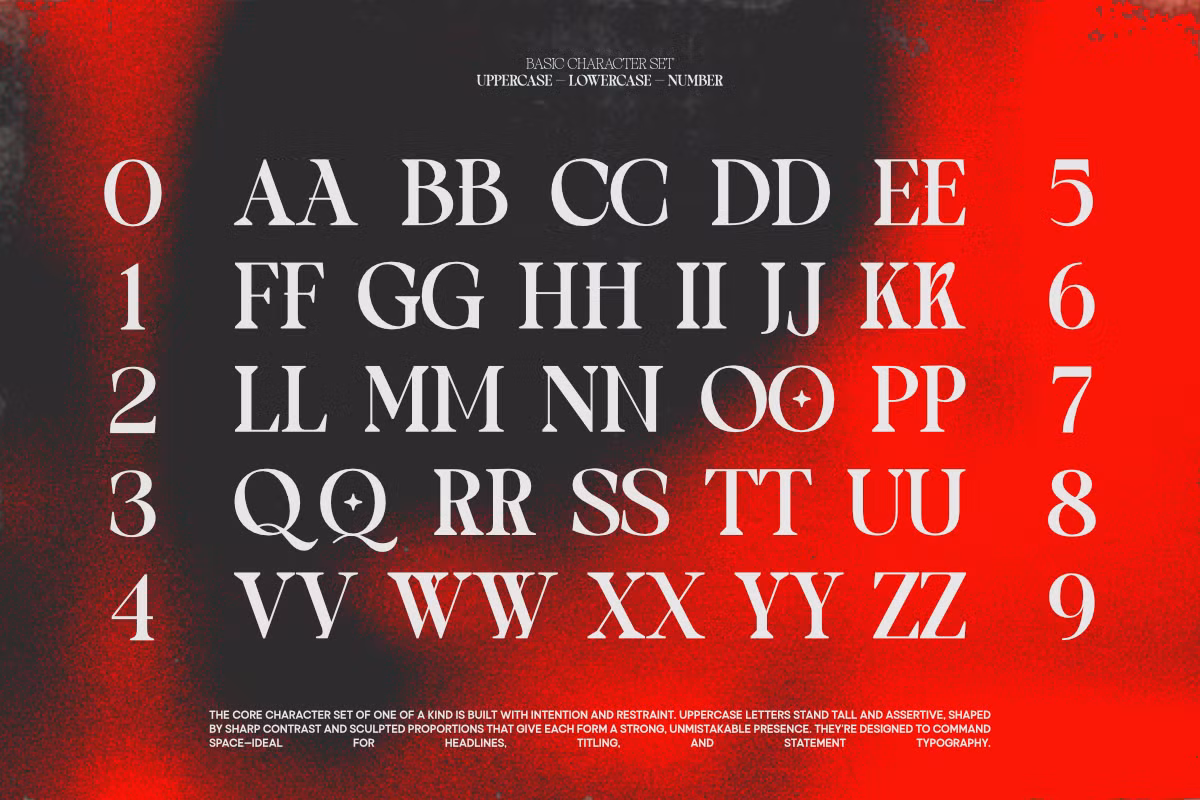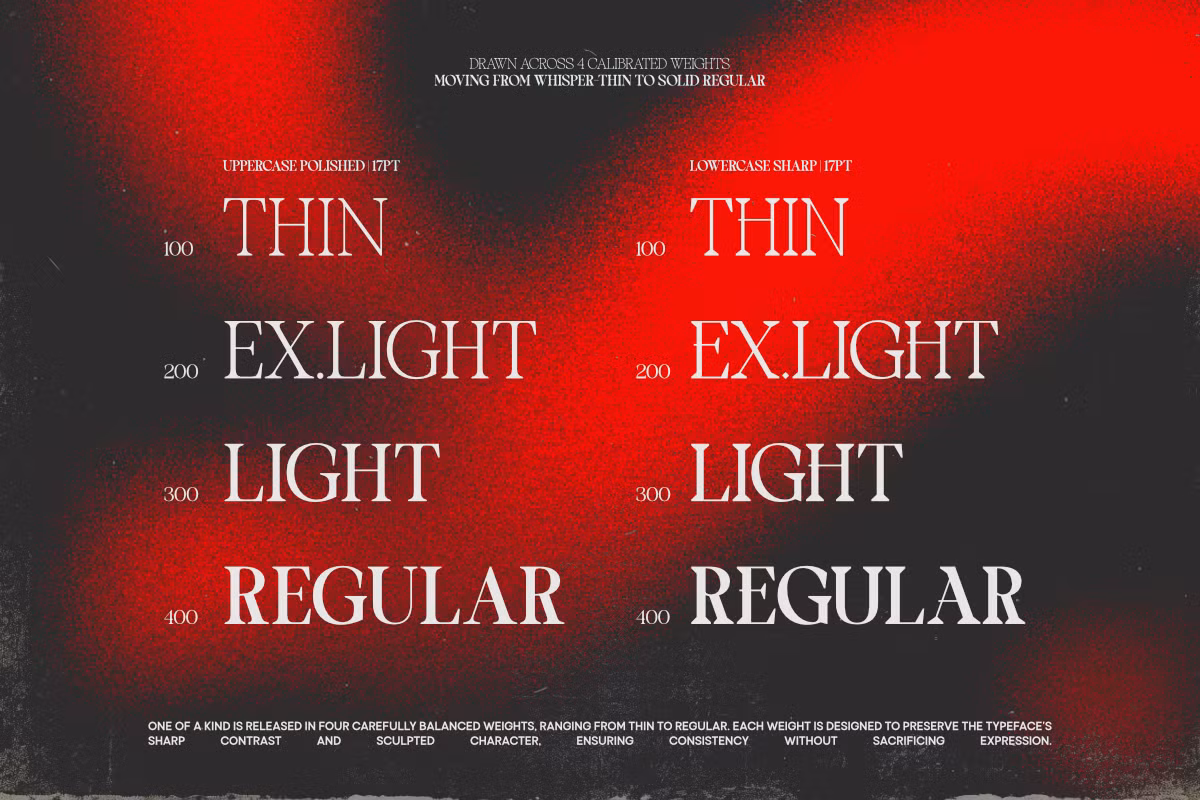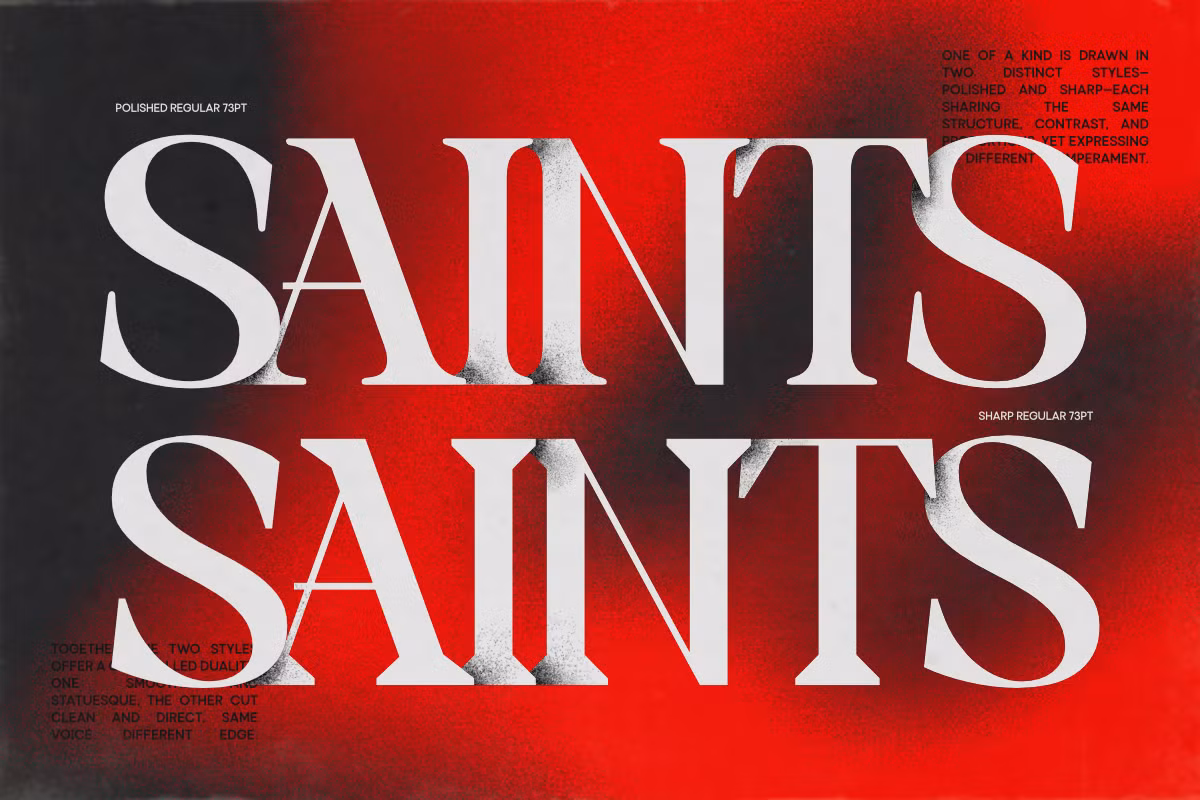
TBJ One Of A Kind Serif Font Family: Modern Typeface for Creative Design
The TBJ One of a Kind typeface is a game-changer – it’s a modern serif font that’s all about sophistication and innovation. What makes it special is the attention to detail that’s gone into crafting it. Recently, the font family got some exciting updates, including new alternates, ligatures, and two distinct styles: Polished, which is smooth, and Sharp, which is angular.
This blend of classic and modern elements is what sets TBJ One of a Kind apart, making it a must-have for designers who want to create something truly unique. With its refined look and bold features, this font is perfect for anyone looking to add some personality to their designs.
Whether you’re working on a project that needs a touch of elegance or something that’s more cutting-edge, TBJ One of a Kind is definitely worth considering. Its versatility and style make it an essential tool for any creative designer looking to make a statement.
TBJ One of a Kind has a unique design style that stands out because of how it combines smooth, curved lines with sharp, angular ones. This mix of opposites creates a look that’s both stylish and modern, with a good balance between the two.
The curved lines in the Polished style give off a sense of luxury, making it a great fit for high-end brands and editorial projects that need to look sophisticated. On the other hand, the Sharp style adds a bit of an edge, making it perfect for modern displays and design projects that want to push the boundaries.
This contrast between curves and angles gives TBJ One of a Kind a distinctive character that’s both elegant and cutting-edge. The letters in this font have been carefully designed to look good and work well in different situations.
Character Sets
TBJ One of a Kind offers a comprehensive character set that includes uppercase and lowercase letters, numerals, and a variety of punctuation marks. Additionally, the typeface features an array of ligatures that seamlessly connect certain letter combinations, adding an extra layer of elegance to your typography.
Designers can pick from different versions of certain letters with refined alternates, which lets them create unique typography. This flexibility makes the design better, allowing for a custom look that fits the project’s goals perfectly.
It’s all about having options to make your design stand out. With refined alternates, you can experiment with various styles and find the one that works best for your project. This level of detail can make a big difference in the overall look and feel of your design, making it more polished and professional.
Use Cases
The versatility of TBJ One of a Kind makes it suitable for a wide range of applications. Here are some notable use cases:
- Branding: The sophisticated design of the Polished style is ideal for luxury brands, providing an air of elegance and refinement.
- Editorial Design: Whether for magazines, brochures, or online publications, the expressive nature of this typeface enhances readability and visual interest.
- Posters: Both styles work wonderfully for posters, where bold statements and artistic flair are required.
- Display Use: The sharp angles of the Sharp style lend themselves well to creative projects that demand attention and innovation.
No matter what the project is, TBJ One of a Kind has the ability to adjust to different design requirements without losing its special charm. It can fit in with various styles and still manage to stand out, making it a versatile and valuable asset for any design project.
To achieve a harmonious typographic design, pairing TBJ One of a Kind with complementary typefaces is essential. Here are some pairing suggestions:
When you pair a unique font like TBJ One of a Kind with a simple sans-serif font, such as Helvetica or Futura, it creates a really interesting contrast. The smooth lines of the serif font work well with the modern feel of the sans-serif font, grabbing the reader’s attention while still being easy to read.
This combination is great because it lets you have a fancy font as the main focus, while the sans-serif font helps to keep things clean and simple. It’s a good way to add some visual appeal to your design without making it too hard to read.